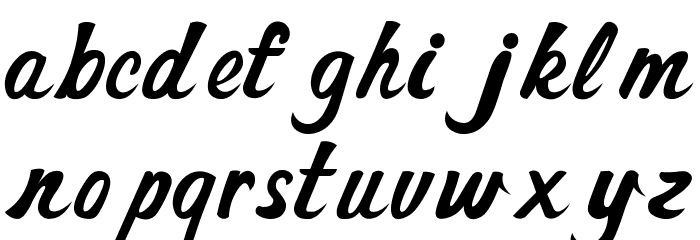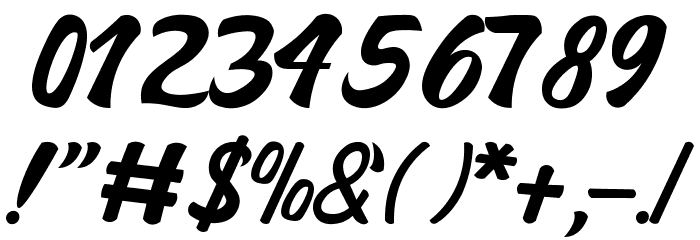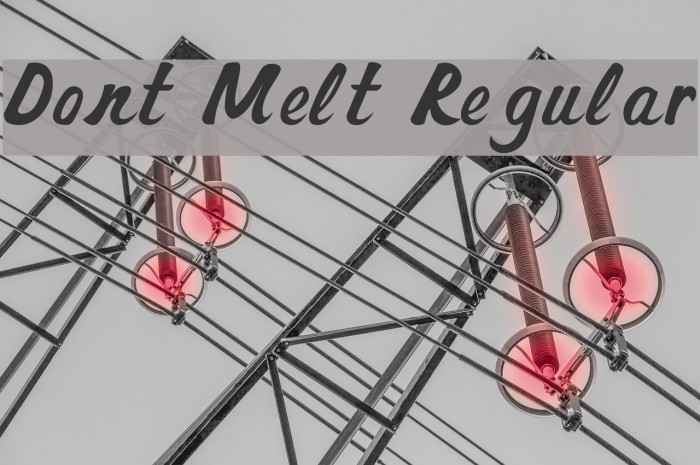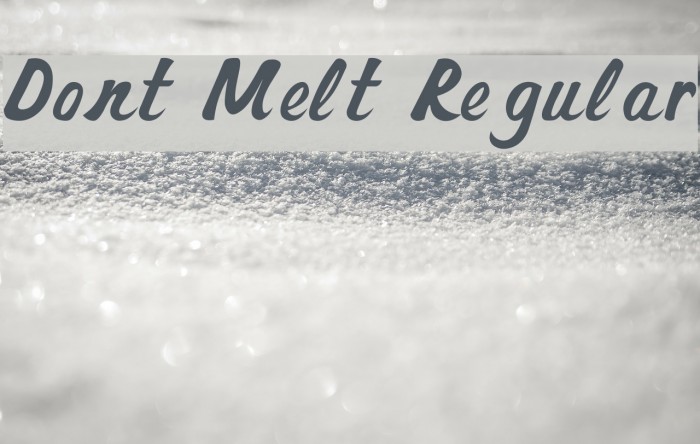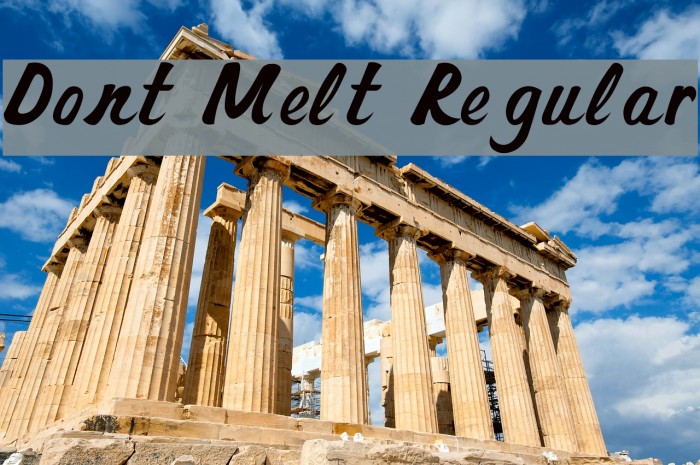
Dont Melt Regular Font
This font features a playful and dynamic script style with a smooth, flowing appearance. The characters are slightly slanted, giving a sense of motion and energy. The strokes are bold and consistent, with rounded edges that add a friendly and approachable feel. The uppercase letters are distinct and well-defined, while the lowercase letters maintain a cohesive and harmonious look. Numbers and special characters are designed to match the overall style, ensuring versatility across different uses. The font's design is both modern and timeless, making it suitable for a variety of creative projects.
A bold, playful script font with smooth, flowing characters.
- Category: Script
- Overall Style: Playful, Modern